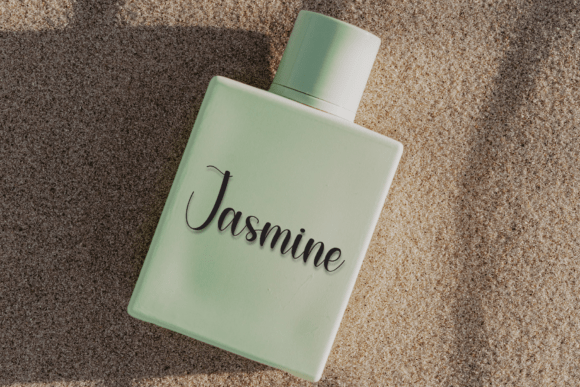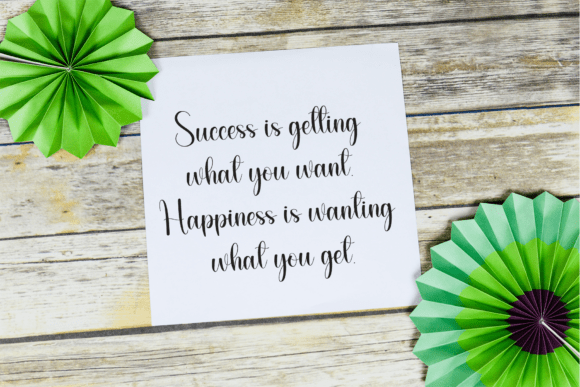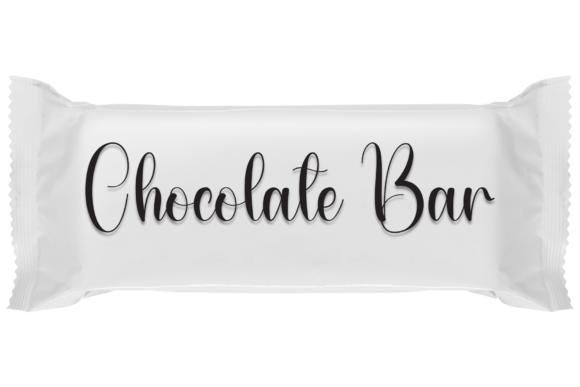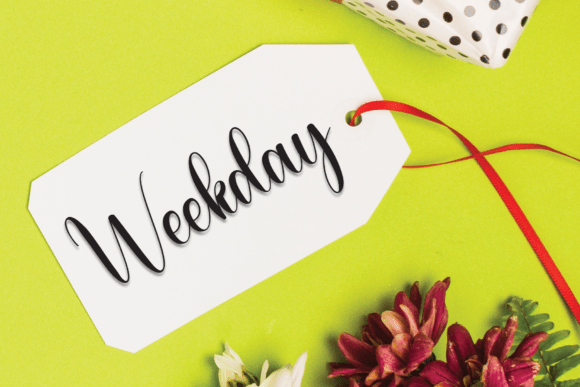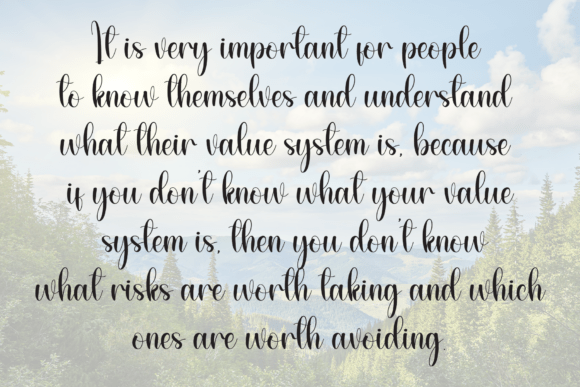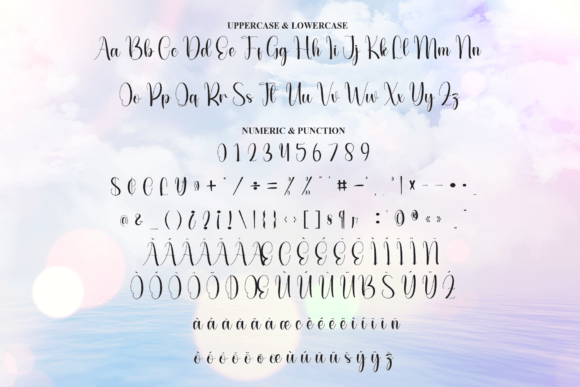
The Perfect Font for a Personal Touch
There’s nothing quite like the feeling of pouring your heart and soul into a creative project, and then finally finding the perfect font to bring it all together. You know that moment when everything clicks, and the design just feels… right? That’s exactly what happens when you use the Charming Font.
This stylish handwritten script font is designed to capture the elegance and playfulness of any project. With flowing curves and a natural rhythm, it adds a personal, charming touch to invitations, branding, and social media. Whether you’re a seasoned designer or just starting out, the Charming Font is a valuable asset to have in your toolkit.
Key Features of Charming Font
- Unique Characteristics: Charming Font features a distinctive, elegant script with refined connections and subtle flair, making it perfect for creating a sophisticated and charming visual identity.
- Font Style: Charming Font is a script font, ideal for use in applications where a handwritten or cursive effect is desired, such as in titles, headings, and other display text.
Designer Review: Charming Font
Overall, I’m quite pleased with the Charming Font. It’s a beautiful script font that can add a touch of elegance to any design project. ✨ The font’s unique, flowing lines and subtle flair at the ends of letters make it perfect for invitations, wedding designs, and other romantic or vintage-themed projects.
- ✨ Beautiful, flowing lines and subtle flair at the ends of letters.
- ✨ Works well for invitations, wedding designs, and other romantic or vintage-themed projects.
- ✨ Comes in a range of weights and styles, making it easy to customize.
However, there are a few limitations to consider. ⚠️ The font can be a bit difficult to read at smaller sizes, and the weight of the letters can sometimes make it look cluttered. Additionally, the font doesn’t come with as many language support options as I would like.
- ⚠️ Can be difficult to read at smaller sizes.
- ⚠️ Can look cluttered if not used carefully.
- ⚠️ Limited language support options.
Overall, I would recommend the Charming Font for designers looking to add a touch of elegance to their projects. While it may not be perfect, it’s a beautiful and versatile font that can help create stunning designs.
Charming Font is ideal for:
Birthday party invitations and decorations
Social media graphics and advertisements
Branding and marketing materials
Any project that requires a touch of elegance and sophistication.